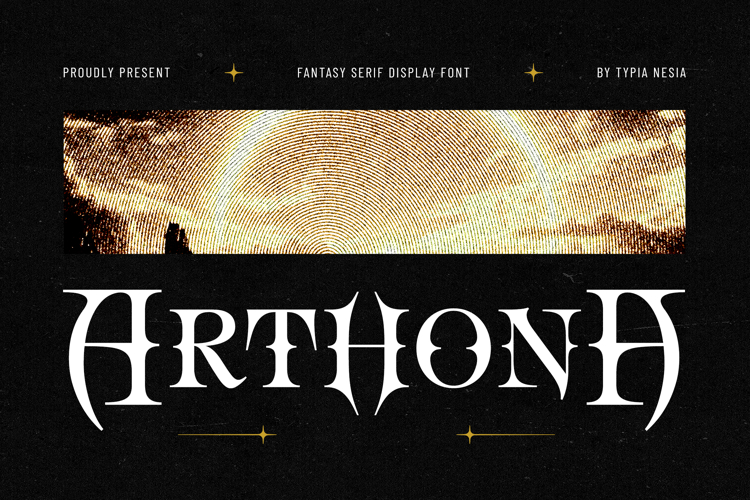
Arthona - Fantasy Serif Display Font - Gothic Medieval and Gaming Designs.
Arthona is a fantasy serif display font with a strong gothic and medieval feel. Its sharp serifs and unique letterforms give it an elegant and mystical appearance, making it suitable for book covers, music logos, poster, movie titles, album art, video game branding and any project that require a classic yet powerful aesthetic. Arthona supports multilingual characters and includes various alternates and ligatures, allowing for highly customized and expressive typography. It is designed to create an immersive and memorable visual experience for your audience.
Arthona